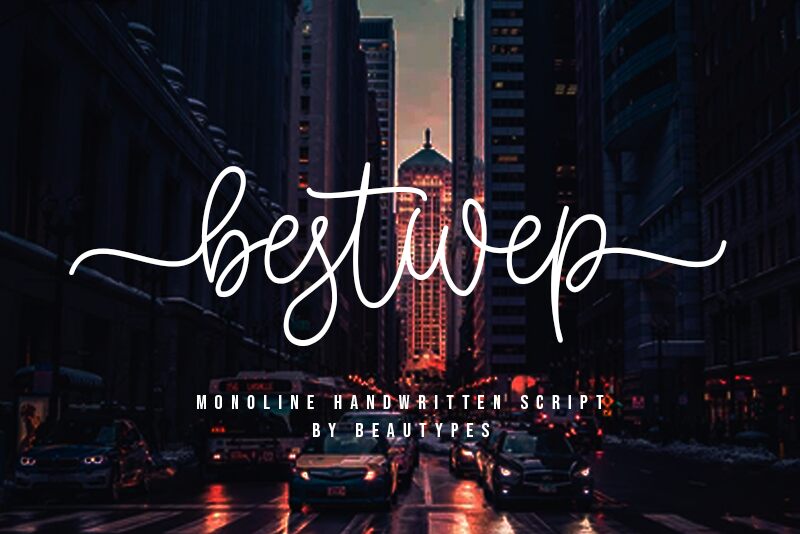
Looking for a font that can bring a unique and personal touch to your project? Meet bestwep, the latest creation from the talented designer Beautypes. With its handwritten monoline style, this light font adds a touch of elegance and sophistication to any design. Suitable for both digital and print projects, bestwep is perfect for branding materials, logos, invitations, social media graphics and more. Its simplicity makes it ideal for various industries such as fashion, beauty, art or lifestyle. Get creative with this versatile semi-bold typeface and elevate your designs to the next level!
bestwep